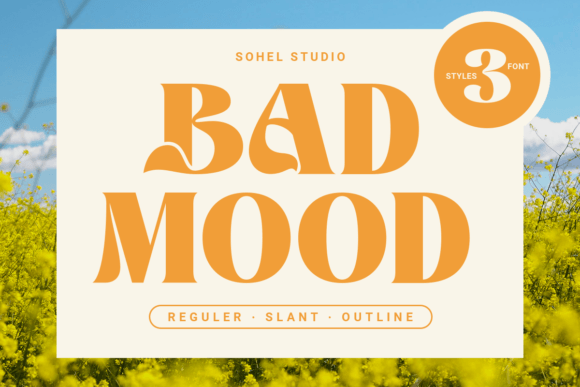
Looking for the perfect font to make a statement with your web design projects? Look no further than Badmood Font by Sohel Studio. This sleek and modern bold font is designed to captivate and inspire, making it the ideal choice for those looking to elevate their creative endeavors.
With its clean lines and strong presence, Badmood Font exudes sophistication and style. Whether you're creating captivating headlines, eye-catching logos, or building a powerful branding identity, this font has got you covered. Its bold and confident aesthetic will ensure that your message stands out from the crowd, leaving a lasting impression on your audience.
But what sets Badmood Font apart from the rest? Its versatility and attention to detail. Created with the latest web design trends in mind, this font is perfect for the modern digital landscape. It effortlessly combines elegance with a touch of edginess, giving your projects a unique and memorable flair.
Not only does Badmood Font offer stunning visual appeal, but it also provides practicality. This font is PUA encoded, meaning you have easy access to a vast selection of amazing glyphs and ligatures. Unlock a world of creative possibilities and effortlessly enhance your designs with the multitude of options available at your fingertips.
Whether you're a professional designer or a passionate DIY enthusiast, Badmood Font is the perfect companion for your creative journey. Embrace the power of modern design and let Badmood Font take your projects to new heights. Its captivating allure and captivating presence will leave a lasting impression on your audience, ensuring that your message is heard loud and clear.